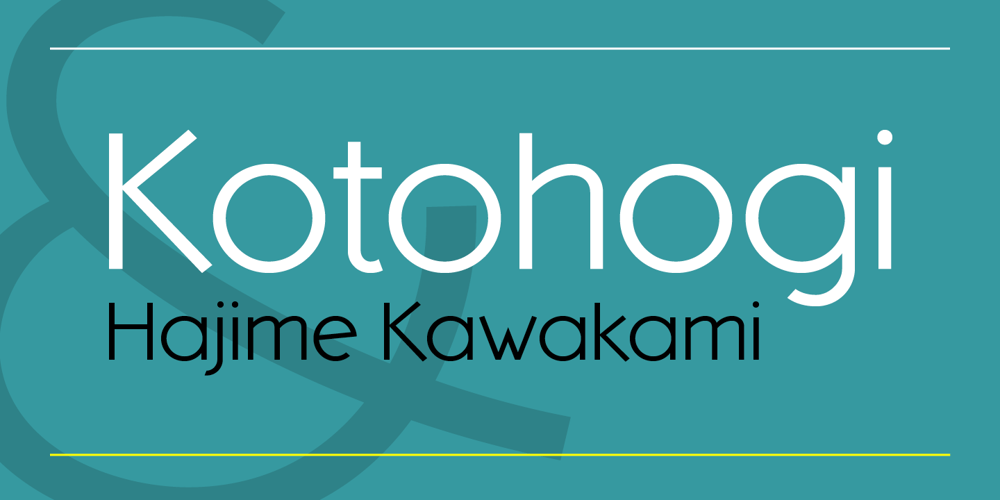
Kotohogi Font Family was designed by Hajime Kawakami and published by URW Type Foundry. Kotohogi contains 10 styles and family package options. “Kotohogi” means “celebration words” in Japanese. It is a typeface of a geometric bright image.